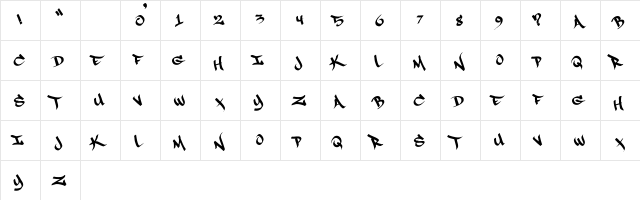
RapScript Regular
| Foundry | Matthew Napolitano / Highground Industries |
| Designer | Matthew Napolitano / Highground Industries |
Design Context for RapScript Typeface
RapScript brings a calligraphic fluidity to the page — its connecting strokes and expressive curves give it an unmistakably human quality.
Font Pairing: Combine RapScript with a simple geometric sans for maximum contrast — the tension between flowing curves and clean structure is a classic typographic pairing.
Pro Tip: Use RapScript for short runs of text — names, titles, or taglines. Extended body copy in script faces tires the eye quickly.